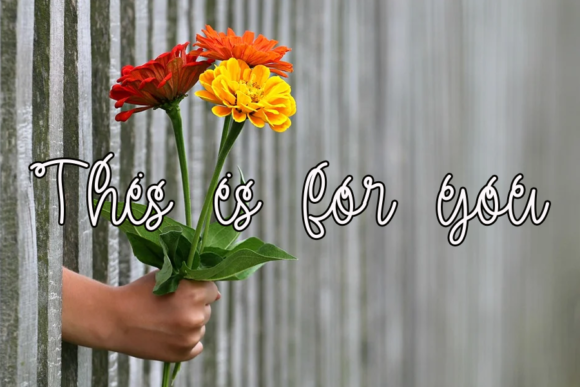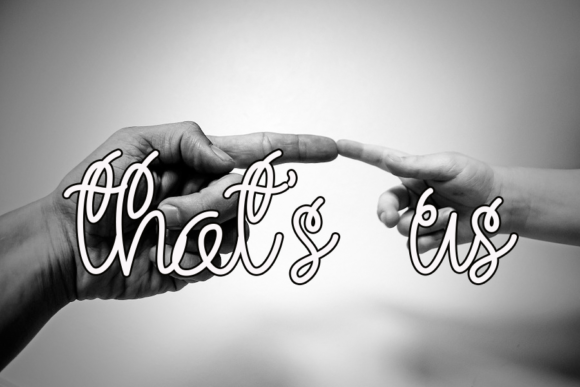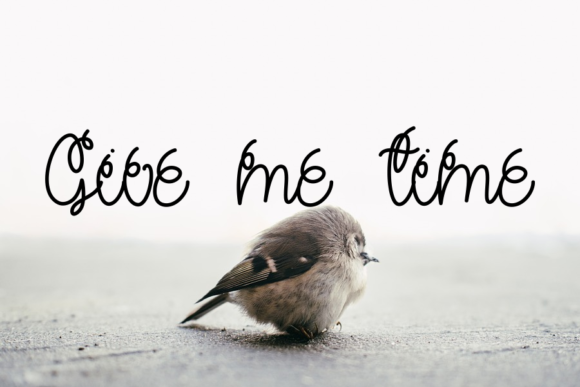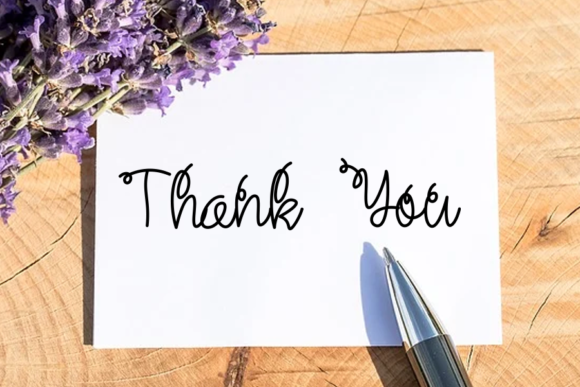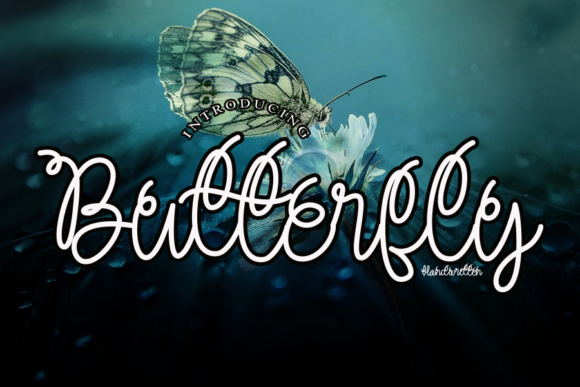
Introducing Butterfly Font: The Sweet and Versatile Handwritten Font
Are you a designer or crafter looking for a font that can elevate your designs to the highest levels? Look no further than Butterfly Font, a simple, thin, and sweet handwritten font that is incredibly versatile and perfect for a wide range of design projects.
What is Butterfly Font?
Butterfly Font is a beautiful handwritten font that is characterized by its delicate and thin strokes. Its simplicity and sweetness make it perfect for designs that require a touch of elegance and sophistication. Whether you’re creating a logo, a greeting card, or a social media post, Butterfly Font is sure to add a touch of charm and whimsy to your design.
Features of Butterfly Font
- Simple and Thin Strokes: Butterfly Font features simple and thin strokes that give it a delicate and elegant look.
- Sweet and Whimsical: The font has a sweet and whimsical feel to it, making it perfect for designs that require a touch of playfulness.
- Versatile: Butterfly Font is incredibly versatile and can be used for a wide range of design projects, from logos and branding to greeting cards and social media posts.
- Handwritten: The font has a handwritten feel to it, giving it a personal and unique touch.
Uses of Butterfly Font
Butterfly Font is perfect for a wide range of design projects, including:
- Logos and Branding: Use Butterfly Font to create a beautiful and elegant logo for your brand.
- Greeting Cards: Add a touch of whimsy and charm to your greeting cards with Butterfly Font.
- Social Media Posts: Use Butterfly Font to create eye-catching and engaging social media posts.
- Invitations: Create beautiful and elegant invitations with Butterfly Font.
- Crafting Projects: Use Butterfly Font to add a personal touch to your crafting projects, such as scrapbooking and journaling.
Why Choose Butterfly Font?
There are many reasons why you should choose Butterfly Font for your design projects. Here are a few:
- Unique and Personal: Butterfly Font has a unique and personal touch to it, making it perfect for designs that require a human touch.
- Elegant and Sophisticated: The font has an elegant and sophisticated feel to it, making it perfect for designs that require a touch of luxury.
- Versatile: Butterfly Font is incredibly versatile and can be used for a wide range of design projects.
- Easily Readable: The font is easily readable, making it perfect for designs that require a clear and concise message.
Tips for Using Butterfly Font
Here are a few tips for using Butterfly Font in your design projects:
- Use it with a Bold Color: Use Butterfly Font with a bold color to make it stand out and add a pop of color to your design.
- Pair it with a Bold Font: Pair Butterfly Font with a bold font to create a beautiful contrast and add visual interest to your design.
- Use it for Headings: Use Butterfly Font for headings and titles to add a touch of elegance and sophistication to your design.
- Experiment with Different Sizes: Experiment with different sizes of Butterfly Font to create a unique and visually appealing design.
In conclusion, Butterfly Font is a beautiful and versatile handwritten font that is perfect for a wide range of design projects. Its simple, thin, and sweet strokes make it perfect for designs that require a touch of elegance and sophistication. With its unique and personal touch, Butterfly Font is sure to elevate your designs to the highest levels.